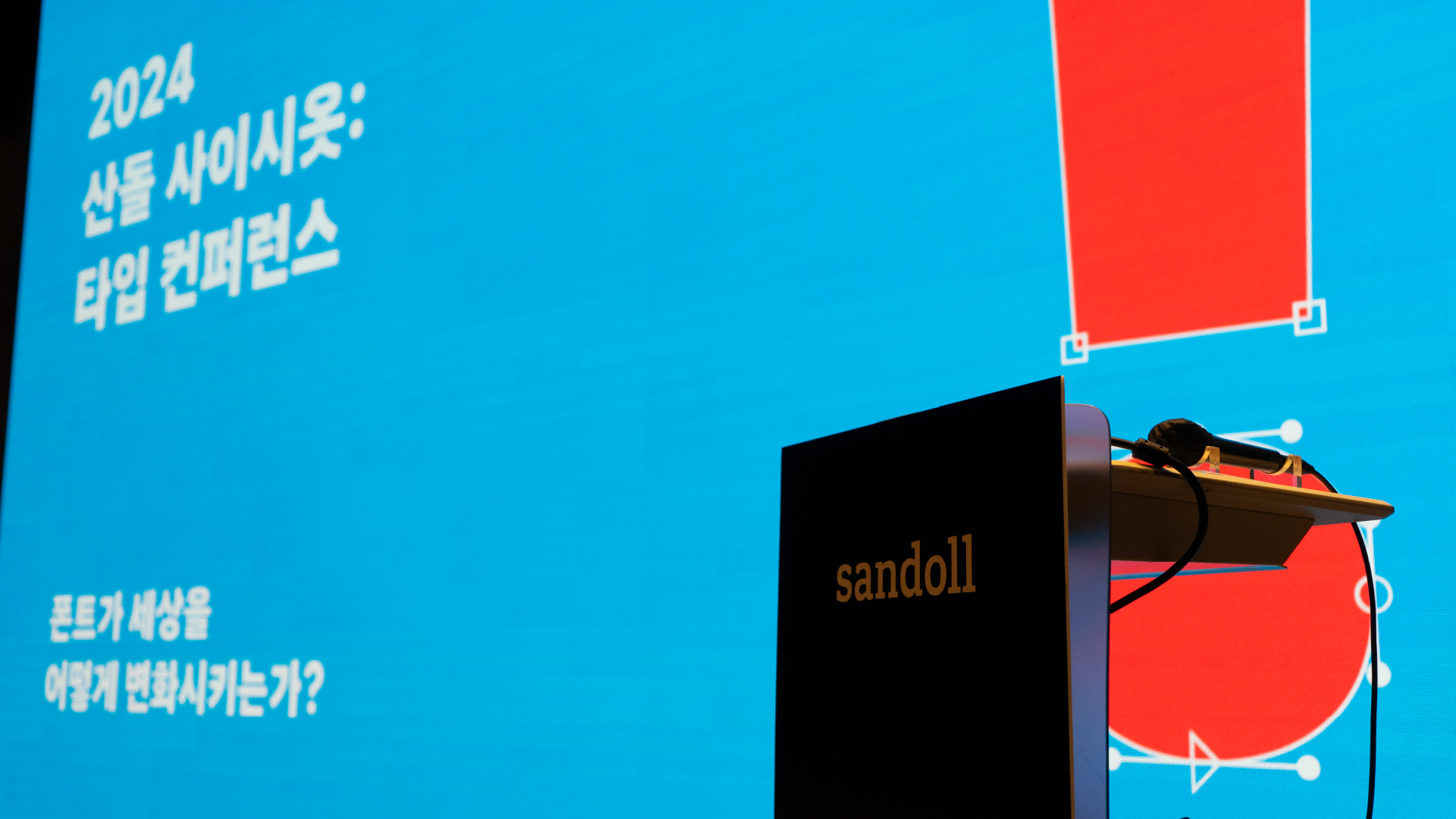
Sea breeze(badat-kka), leaves(namun-nip), sunlight(haet-ppyeot)…
The phonological phenomenon in which the consonant ‘ㅅ’ is added between two combined words is called Saisiot. This occurs when a previously nonexistent ‘ㅅ’ emerges as words come together. Changes created through such interaction resemble a conference, where knowledge is exchanged and learning takes place. In this context, Sandoll named its type conference Saisiot. The official title, [Sandoll Saisiot: Type Conference], reflects our intention to share expertise and experience in fonts while creating an environment for collective growth.
At [Saisiot 2024], held on October 12, we revisited the influence of fonts across various fields and discussed the world transformed by fonts. Today, we would like to share the process behind how the conference message and experience of [Saisiot 2024] were created.
How Do Fonts Change the World?
The theme of [2023 Saisiot] (Link) was “Work and Life.” By looking into the work and lives of experts in the font industry, it explored how fonts are made—covering font designers’ ways of working, font production stories, and research introductions. In contrast, [2024 Saisiot] focused on how fonts interact with their surrounding environments. This was a deliberate choice to broaden awareness of the potential of fonts and expand their influence. To frame this idea, we chose the question, “How do fonts change the world?” In the year Sandoll celebrates its 40th anniversary, we prepared the conference with anticipation for the world that fonts have transformed—and will continue to transform. Can fonts change the world? At [2024 Saisiot], five lectures, seven speakers, and three panelists came together to explore this question. More detailed information about the lectures can be found in Part 2 of the article (Link).
A Feeling of Change
We needed a conference key visual that could be used across the entire event, including the ticketing page, promotional materials, and printed outputs. We designed it with versatility in mind so it could work across various online and offline media, while maintaining consistency as it was adapted to each medium’s characteristics. To clearly convey the theme of [2024 Saisiot], we went through an in-depth study process. Let’s take a look at how it was visualized.
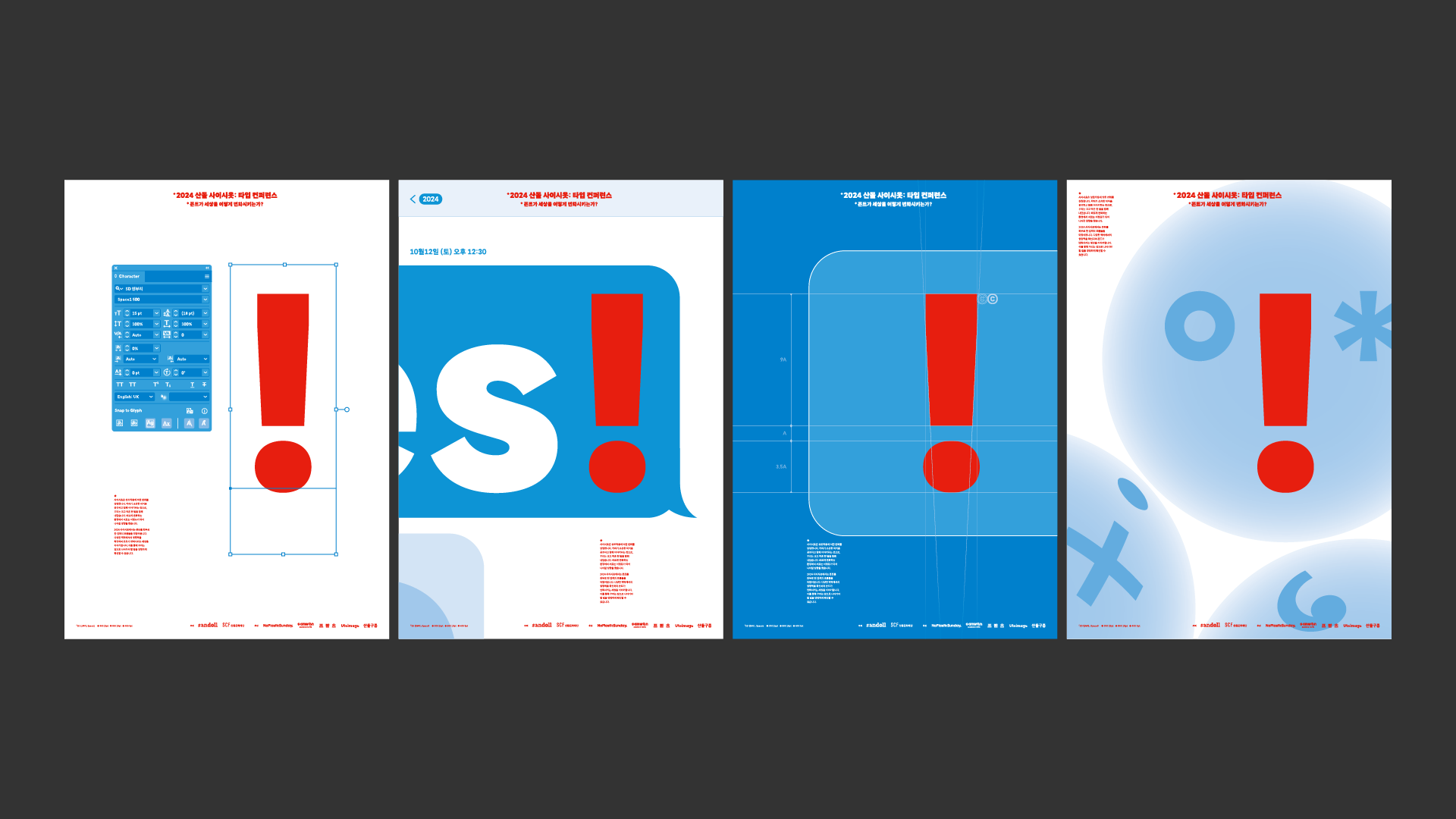
At times, fonts are used as tools, letters, symbols, or even images. While visualizing the theme, “How do fonts change the world?”, we sought to capture the potential and expandability of fonts. As you may have noticed, the exclamation mark (!) functions as a fixed element within the frame, symbolizing the font itself, while the graphics applied to the background represent a changing world and environment. The key visual developed through this process was then expanded and applied across various media. Below is a motion graphic that captures multiple points of contact between fonts and the world.
Fragments of Feeling
Since [Saisiot] is an offline event, it requires a wide range of printed materials. Because even small details can shape a positive conference experience, we focused on creating items that are functional while blending naturally into the overall conference context. This year in particular, with support from Samwon Paper, we were able to experiment with a variety of paper stocks, which became an important element in enriching the overall conference experience.
1. Name Tag
Name tags have limited space and must prioritize essential information such as affiliation and name, so minimizing graphics was unavoidable. To reduce decorative elements while still expressing the identity of a type conference, we designed the name area as a “text box.” We also added a playful element to encourage networking. Stickers representing different networking temperatures were distributed alongside the name tags, allowing attendees to customize them according to their preferences. The emojis used were based on “TossFace,” which was introduced in a lecture at [2024 Saisiot].
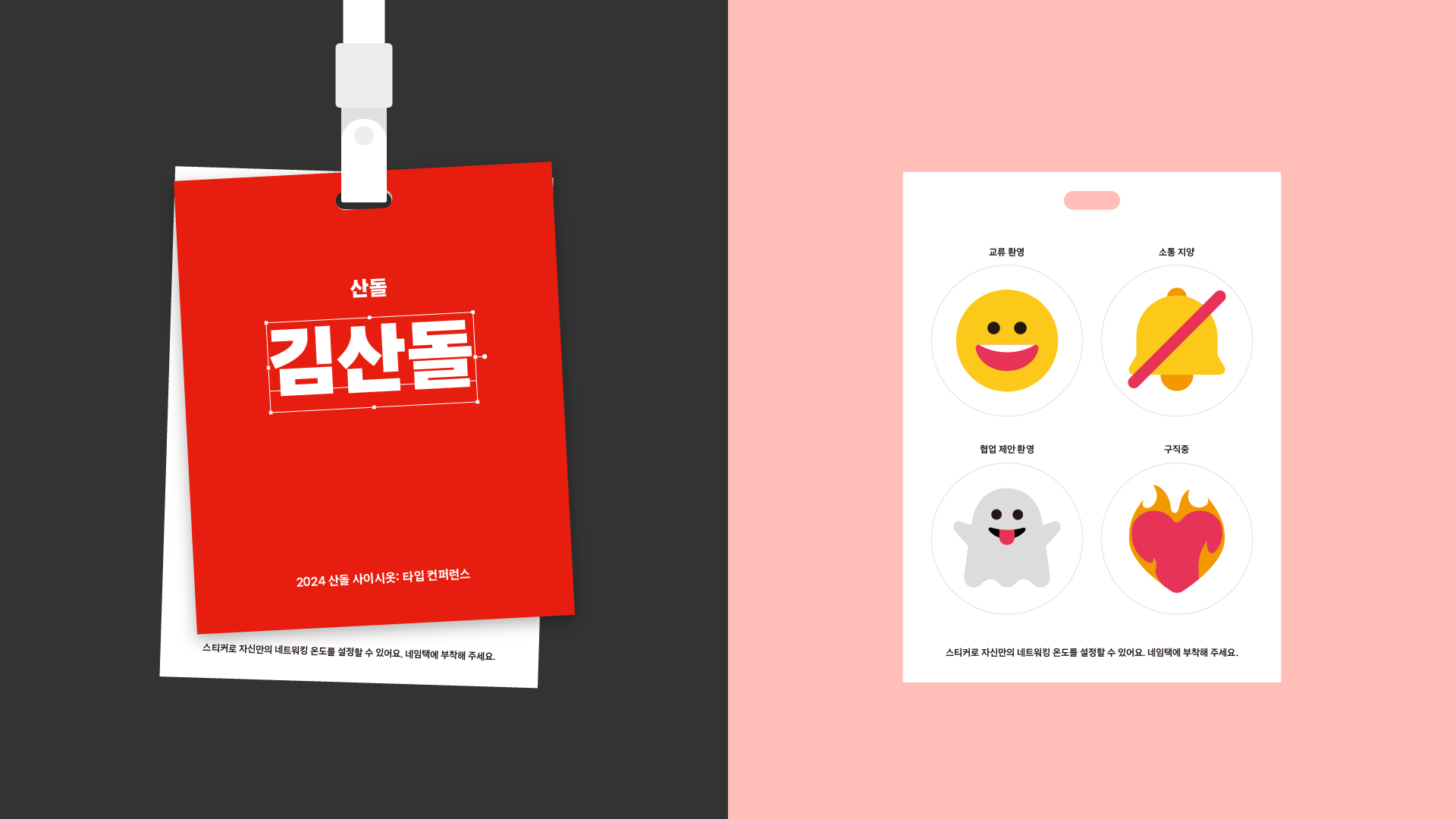
2. SD-KR NFC Keyring
SD-KR (Link) is Sandoll’s Hangul font specification. It proposes a new standard and introduces changes designed to make font production more convenient for creators. To make this research accessible to a wider audience, we prepared a booth introducing SD-KR. In addition, to further improve accessibility, we distributed NFC keyrings that allow users to directly access the website. The website provides not only the specification itself, but also the background, usage, and recommended drawing methods for each glyph. For those interested in fonts, exploring this resource may be helpful.
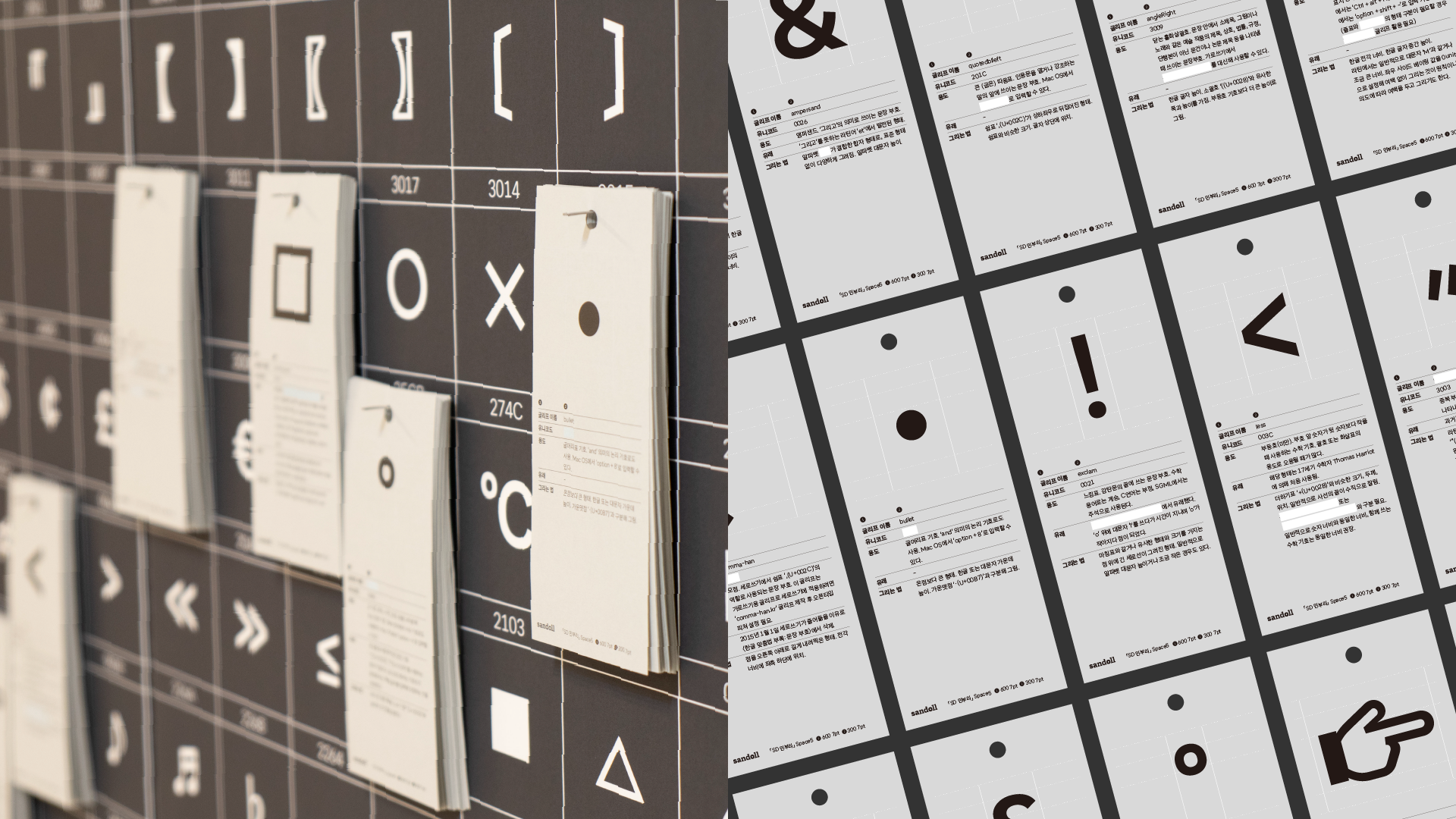
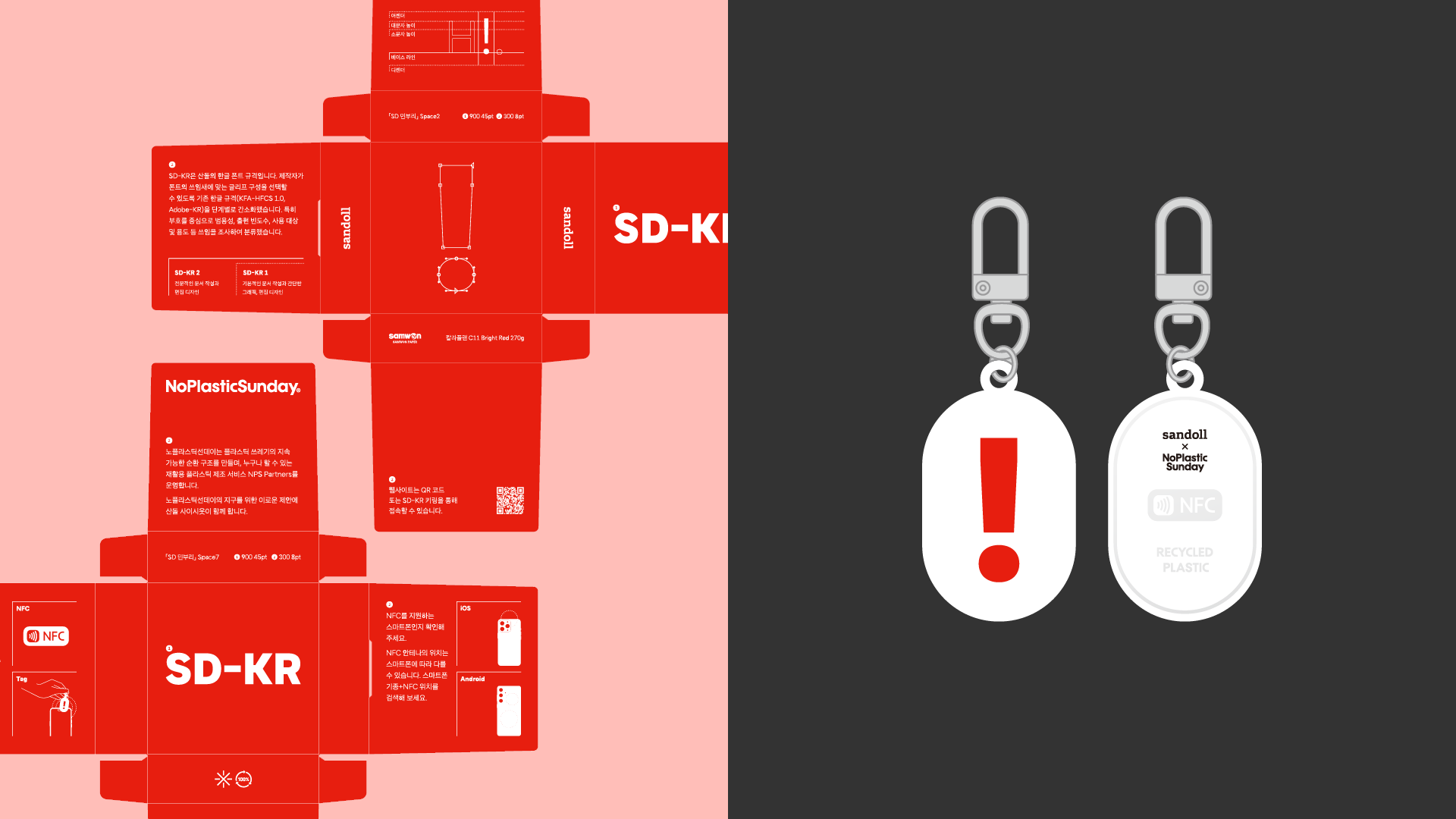
The NFC keyring was created in collaboration with No Plastic Sunday, a brand that advocates practical actions for the planet.
3. 「SD Minburi」 Specimen Book
「SD Minburi」(Link) is a body text font newly proposed by Sandoll. It is a distinctive font that allows users to customize a wide range of widths and weights according to their needs. 「SD Minburi」 was featured in the opening lecture of [2024 Saisiot]. After the lecture, to allow participants to examine 「SD Minburi」 more closely, the font was applied across all design materials, both online and offline. 「SD Minburi」 offers a total of 54 weights, providing a particularly wide range of options, and we indicated which weights and sizes were used for each medium. In this sense, [2024 Saisiot] itself can be seen as a specimen of 「SD Minburi」.
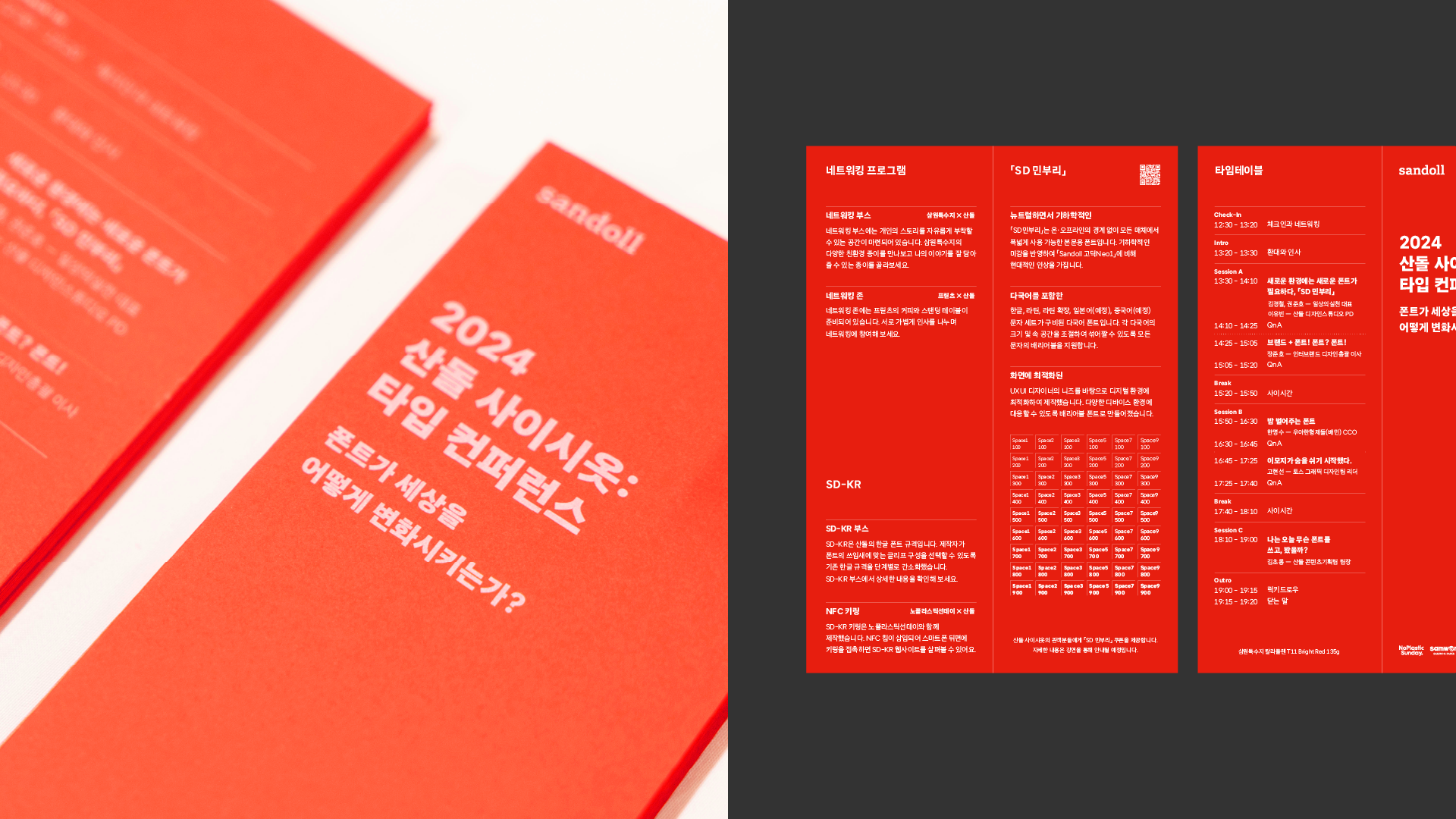
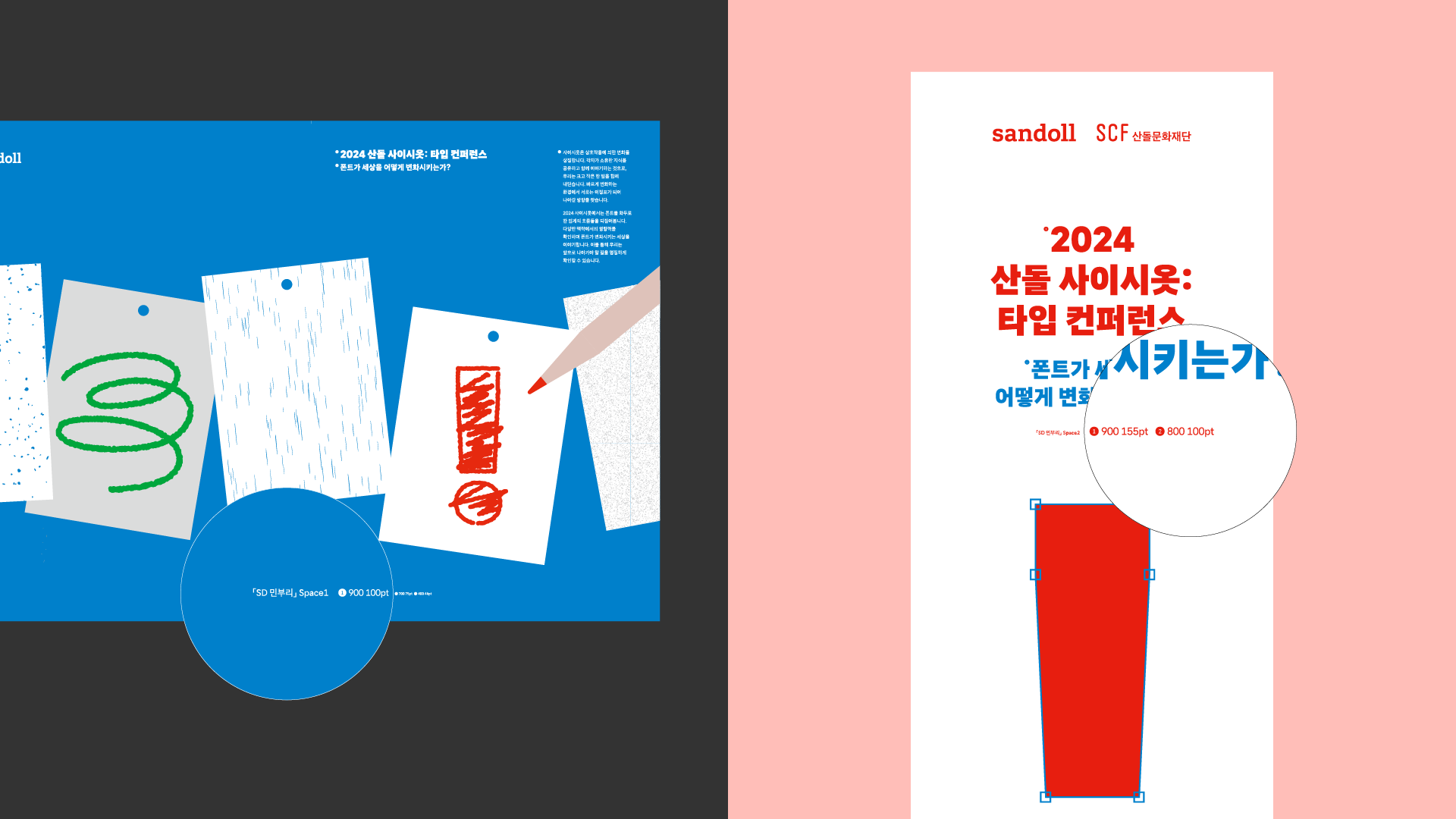
Up until the microphone is turned on
[2024 Saisiot] was carefully designed so that its message could be embodied and experienced beyond the lectures themselves. From the conference key visual and motion graphics to each item created for the audience experience, we explored the theme—“How do fonts change the world?”—in a variety of ways. We hope these efforts left a lasting impression.